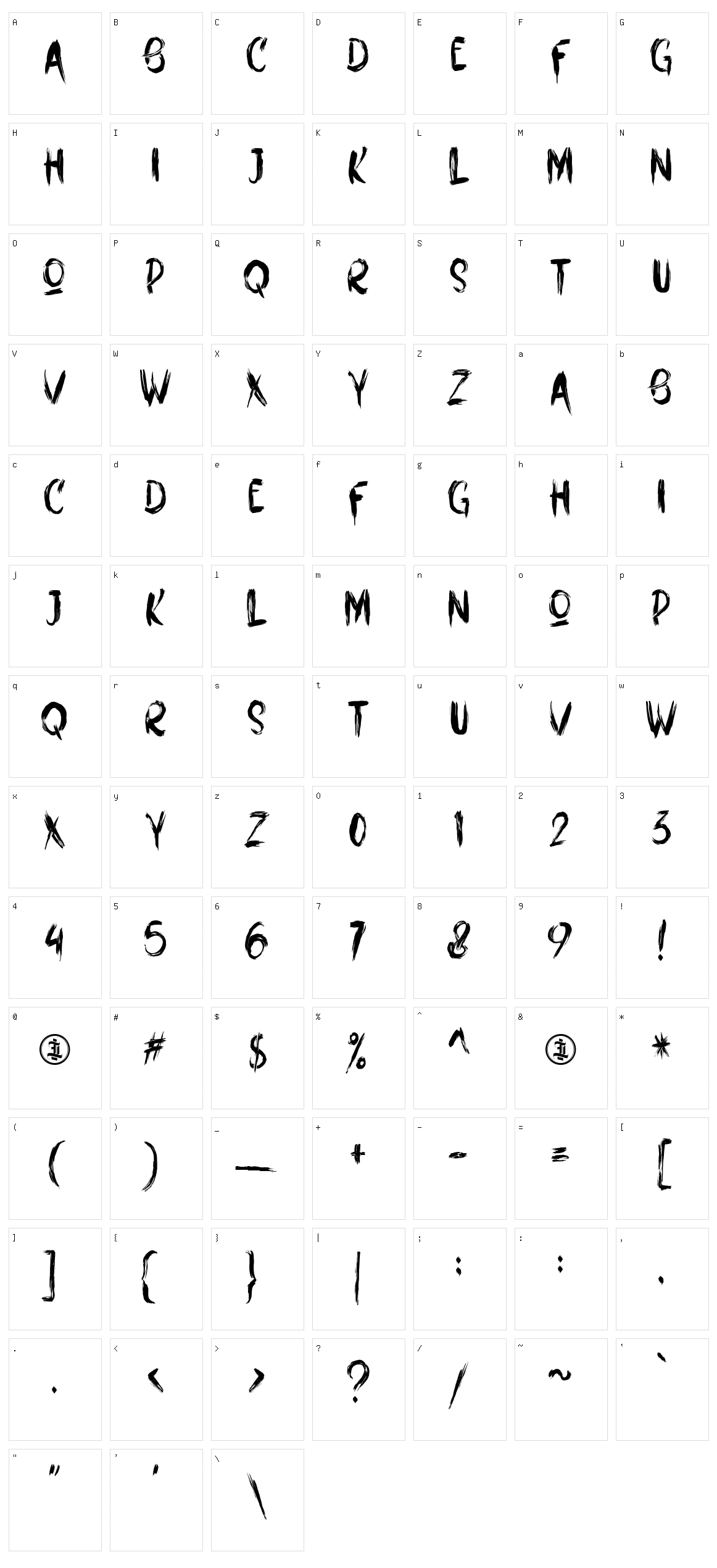
The free font Fredbones is carefully designed by ilhamtaro, showcasing a thoughtful balance of creativity and usability and falls under the Horror font style. When you download the ZIP file, it contains only 216.96 KB of font files, making it lightweight and quick to download. Please review the license details below to understand permitted usage and distribution rights. If license information is not available, we recommend using this font for personal projects only or contacting the author directly for commercial usage permissions.